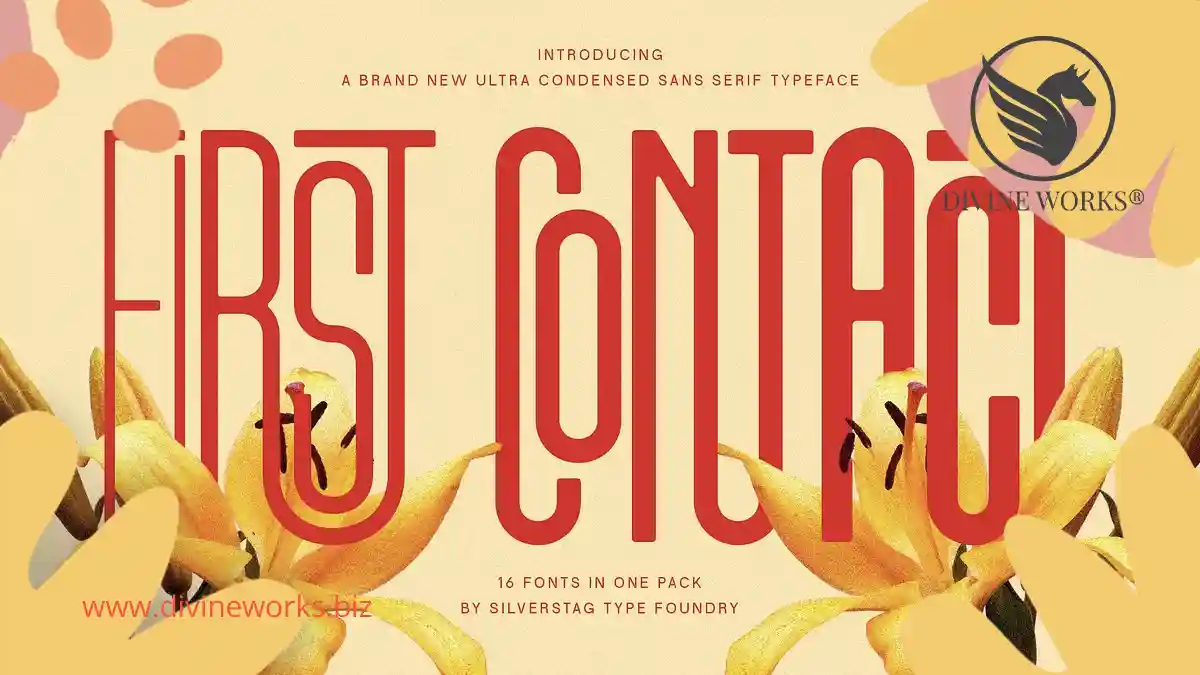
Struggling to find the coolest fonts for logos that truly stand out in today’s crowded marketplace? Longing to create a logo that joins the ranks of the coolest logos of all time? Look no further than First Contact, the ultra-condensed typeface family designed to elevate your designs and leave a lasting impression.
First Contact: Beyond the Coolest Fonts for Logos
First Contact isn’t just about aesthetics; it’s a powerhouse of features that empower you to craft truly impactful logos.
Extensive Weight & Style Options
Explore 16 distinct fonts, from the ethereal Ultra Light to the bold Regular, each available in outlined and rounded versions. This versatility allows you to find the perfect balance between memorability and readability, ensuring your logo becomes a cornerstone of your brand identity.
Expressive Details
Over 540 meticulously crafted ligatures add a touch of personality and flair to your logos. These special character combinations elevate your design beyond a simple graphic, transforming it into a powerful brand statement that competes with the best fonts for corporate logos.
Global Reach
First Contact speaks volumes, literally! With extensive language support for over 90 languages, you can connect with a worldwide audience with confidence.
Unmatched Versatility
First Contact isn’t limited to logos. From commanding headlines and cutting-edge web design to dynamic packaging and eye-catching business cards, this typeface seamlessly adapts to your diverse design needs.
First Contact: The Secret Weapon for Modern Branding
The combination of impactful presence, space-saving design, and exceptional versatility makes First Contact the ideal choice for designers seeking to create modern, impactful logos that rival the best fonts for a logo. Elevate your brand identity with a typeface that demands attention and sets you apart from the competition.